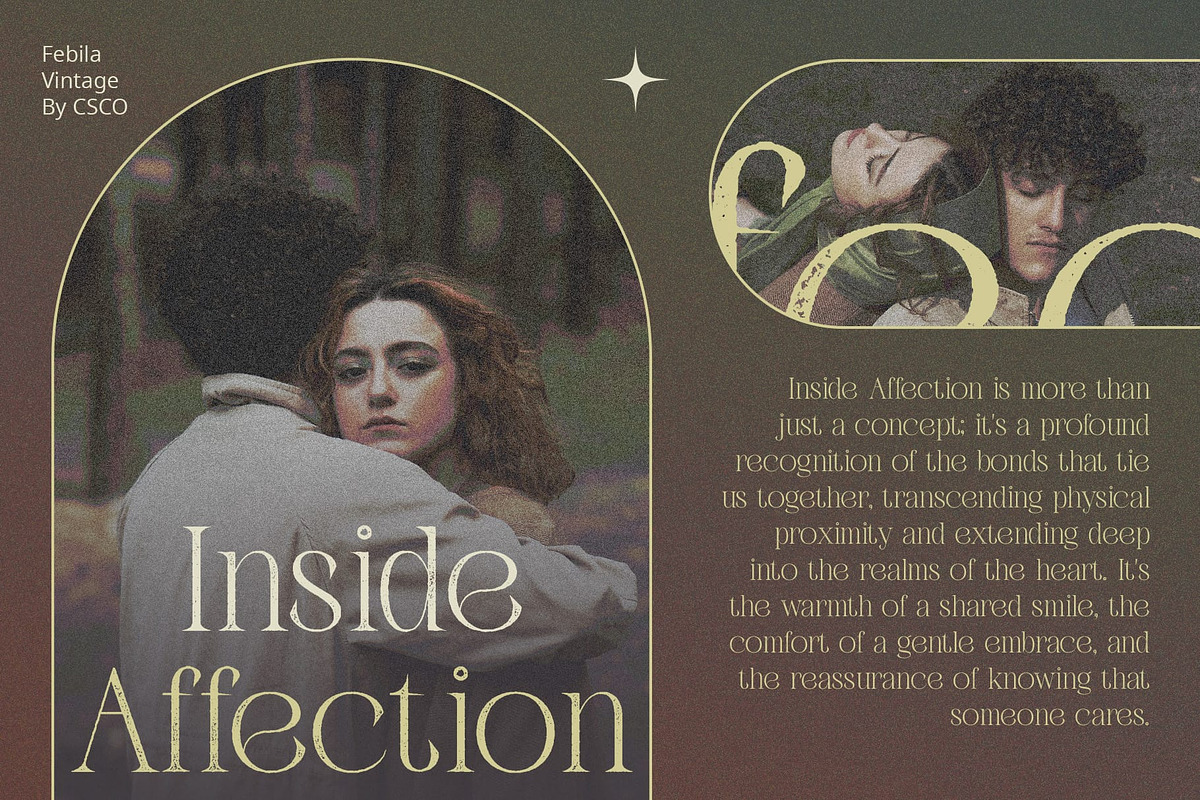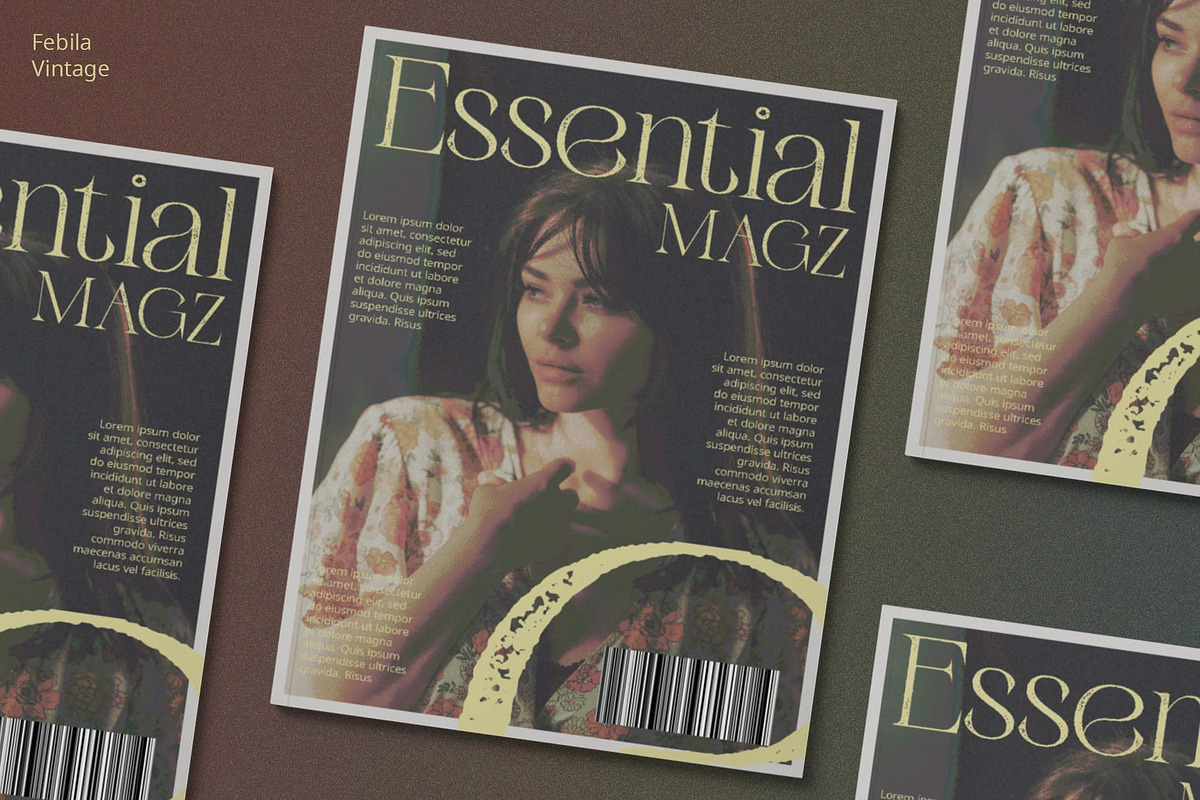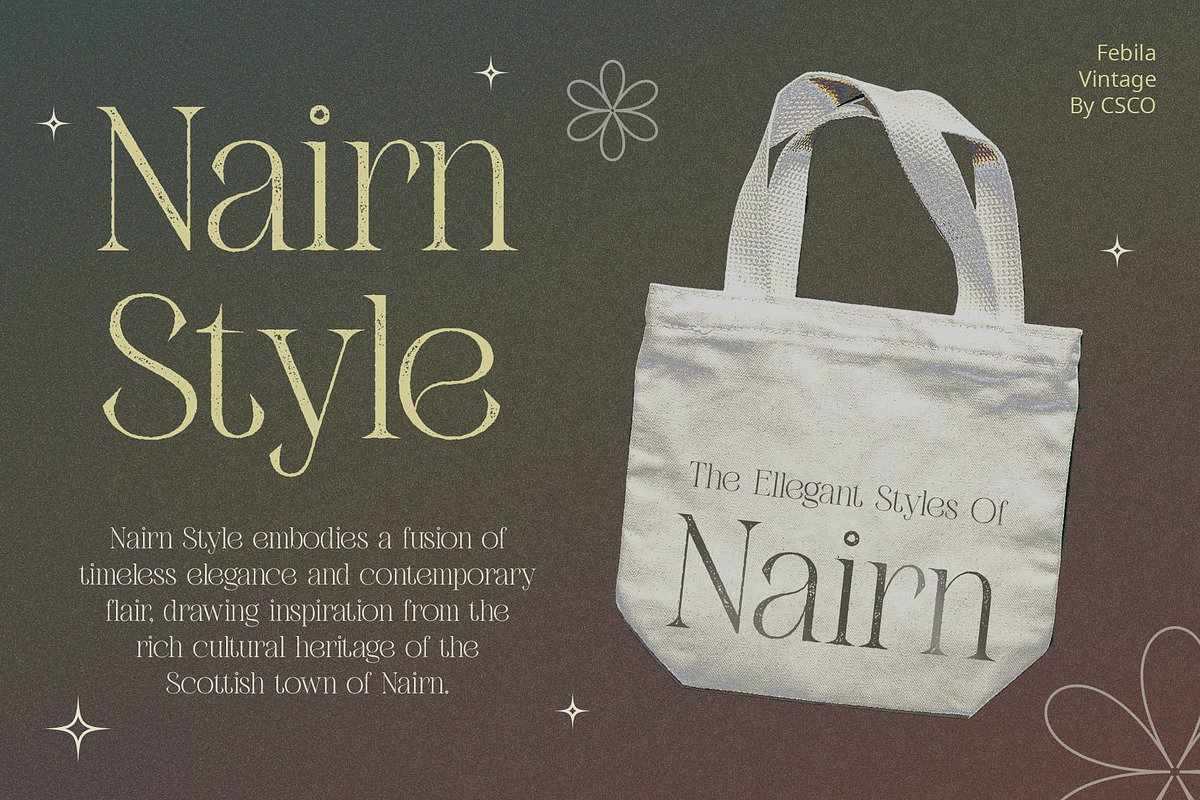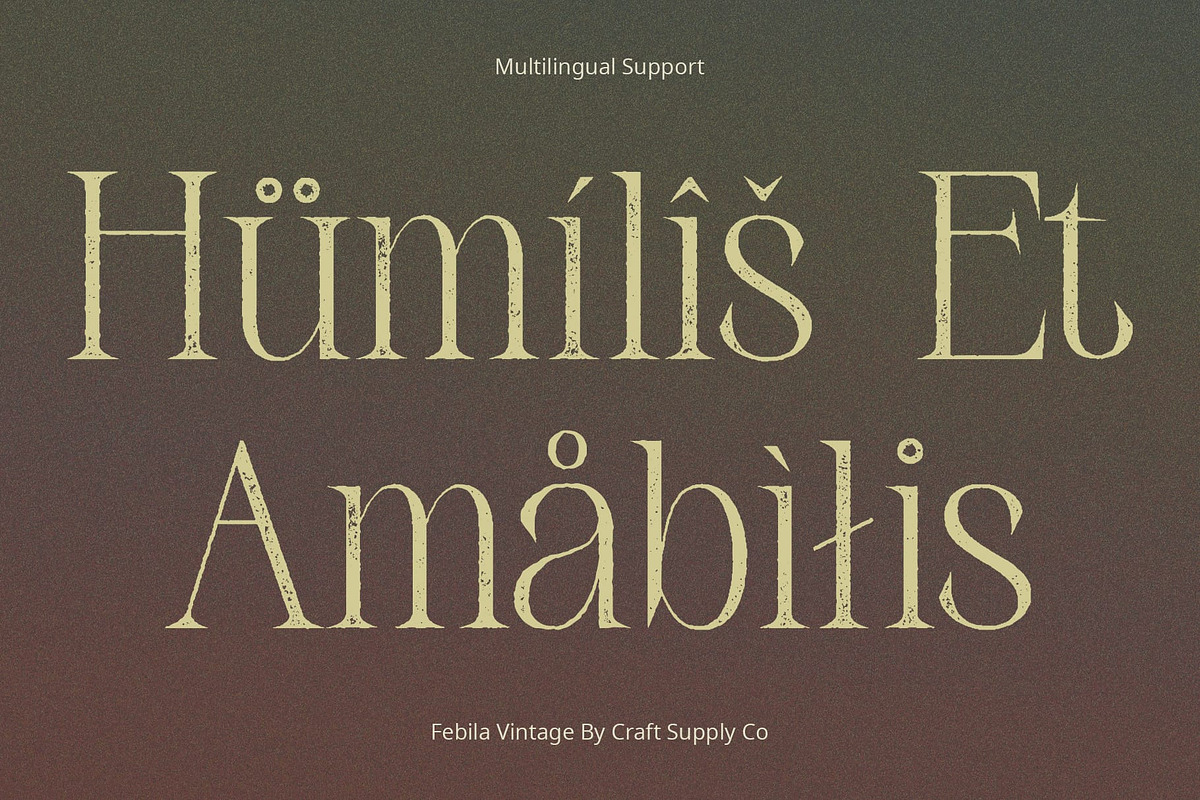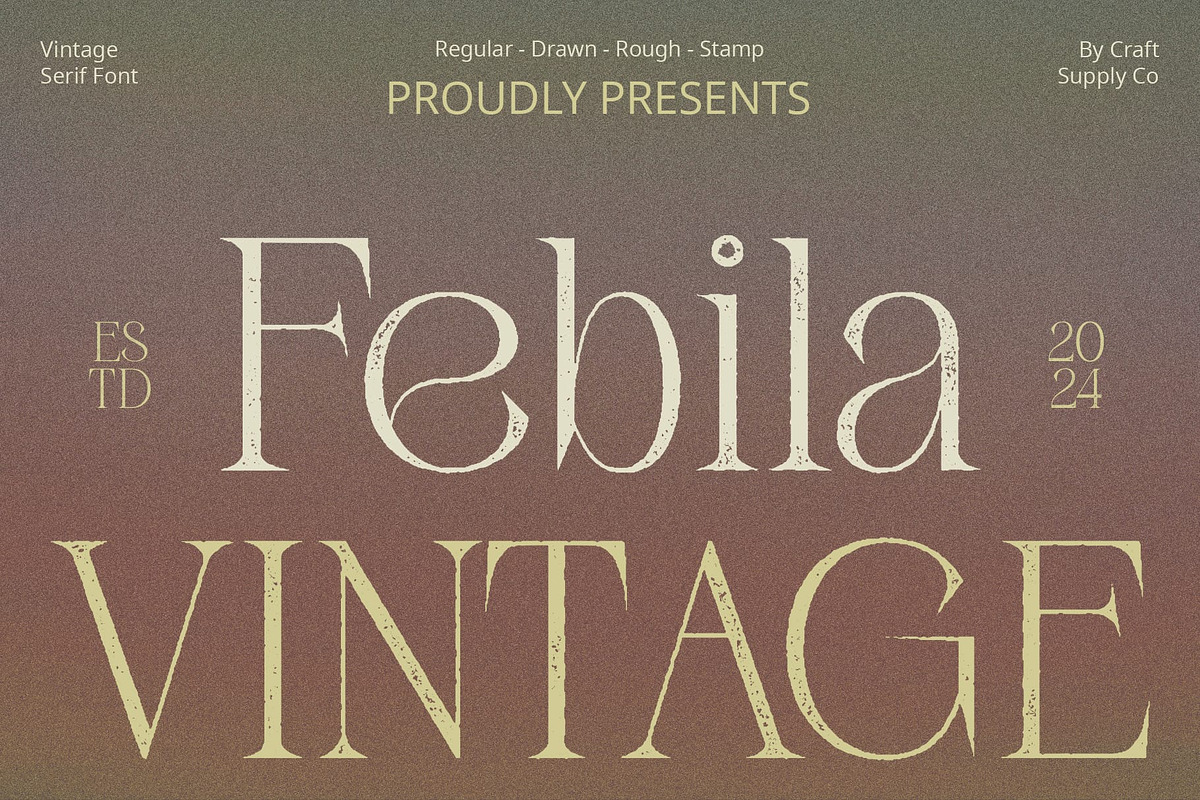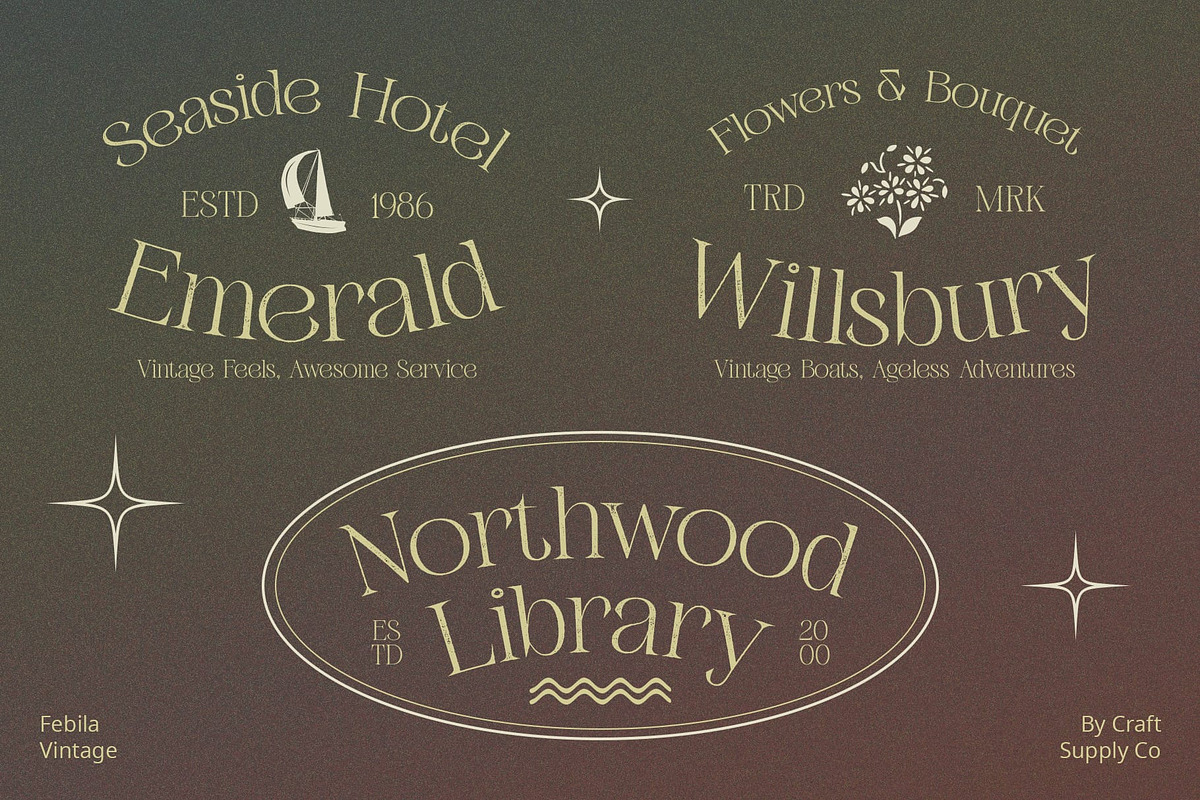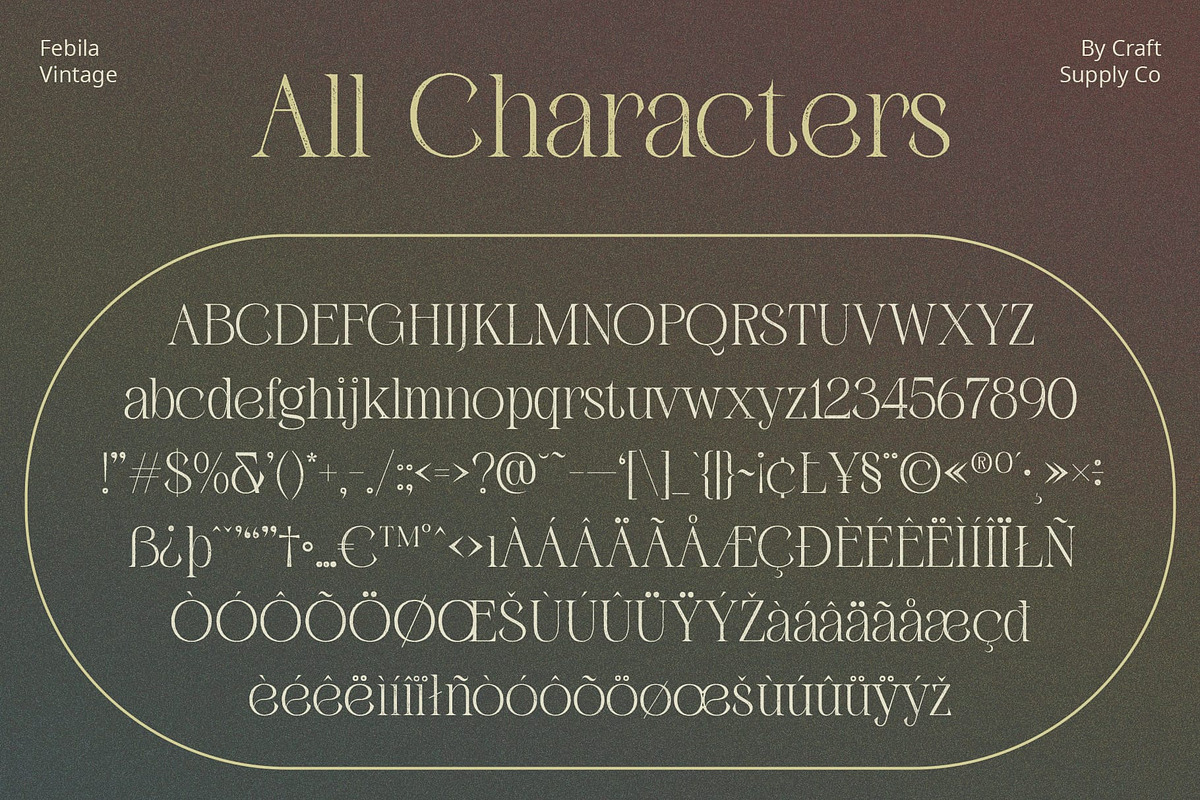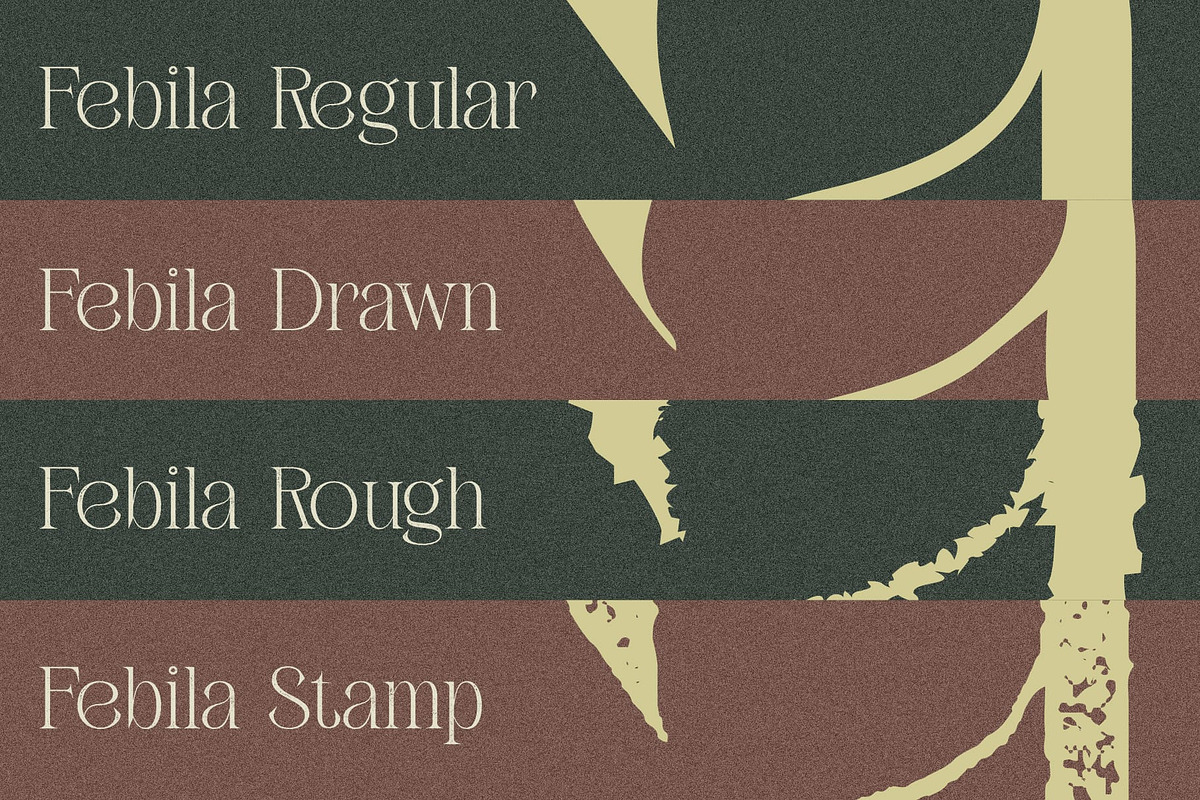
Febila Vintage
Febila Vintage: Embracing Vintage Elegance
High Contrast Serif Design Febila Vintage presents a striking serif display font characterized by high contrast and thin strokes. Its bold yet delicate appearance commands attention and adds sophistication to any project.
Vintage Vibes with a Modern Twist Infused with a touch of nostalgia, This font blends classic serif aesthetics with modern design elements. The incorporation of rough stamp drawn effects gives the font a unique vintage charm with a contemporary edge.
Ideal for Vintage-themed Projects Designed for vintage-themed projects, This font excels in bringing retro vibes to various design endeavors. Whether used in branding, packaging, or editorial design, its distinctive style evokes a sense of nostalgia and authenticity.
Versatile and Impactful Despite its vintage-inspired appearance, This font offers versatility and impact across different applications. From posters to product labels, its high contrast serif and rough stamp drawn effects make a statement and leave a lasting impression.
A Timeless Classic This font emerges as a timeless classic in the realm of display typography. With its high contrast serif design, thin strokes, and vintage-inspired rough stamp drawn effects, it adds a touch of elegance and nostalgia to any project, making it a versatile choice for designers seeking to evoke vintage charm with a modern twist.
- Febila Regular
- Febila Drawn
- Febila Rough
- Febila Stamp